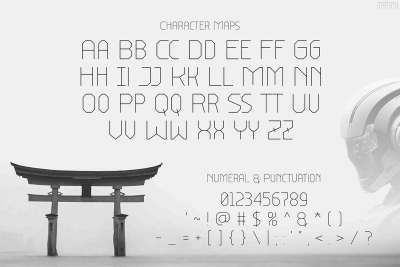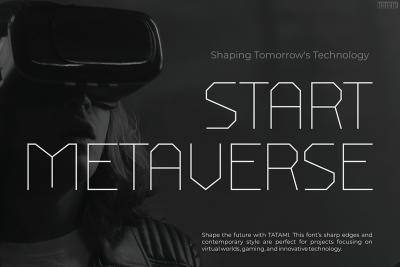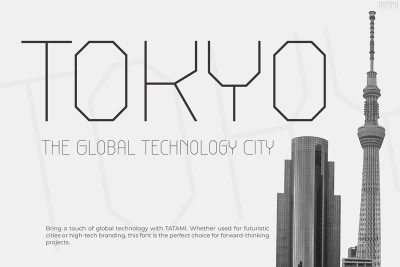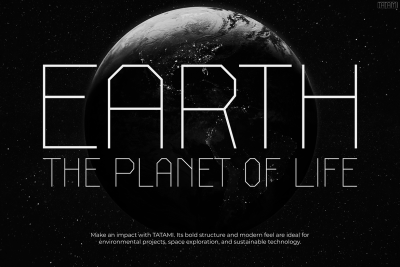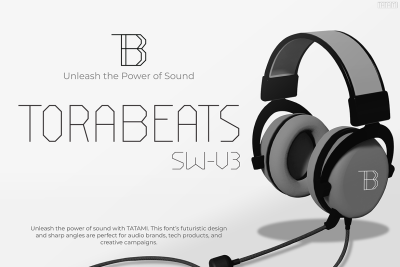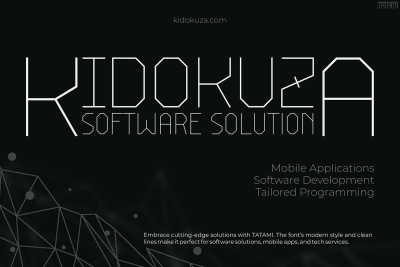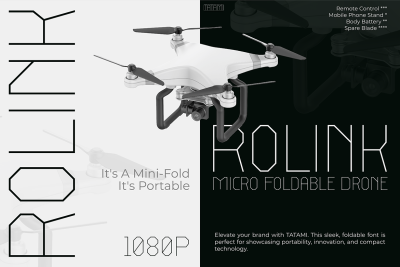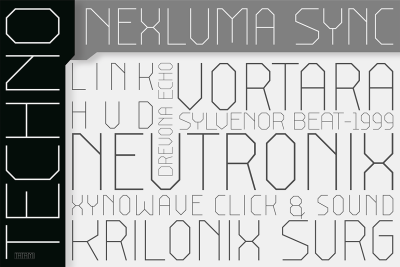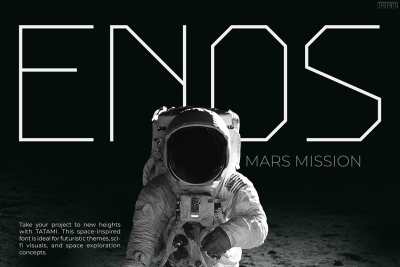
Futuristic Font TATAMI โ A Bold Statement in Typography
Futuristic Font TATAMI is a sleek, modern typeface that brings innovation and style to any design. With its sharp angles, geometric precision, and high-tech aesthetics, this font truly embodies the future of digital branding. Moreover, its clean yet edgy structure makes it perfect for creating a strong visual identity. Whether you are working on branding, marketing, or creative projects, TATAMI stands out due to its unique blend of minimalism and futuristic appeal.
Aesthetic & Functionality in One
TATAMI is more than just a fontโitโs an artistic statement. In addition, its carefully designed letterforms feature sharp lines and an angular structure, making it reminiscent of cyberpunk, high-tech environments, and digital interfaces. Furthermore, its geometric composition ensures a balanced look, offering both readability and a strong futuristic character.
Since each letter is crafted to convey precision and modernity, TATAMI is an excellent choice for projects that demand a cutting-edge and tech-inspired visual style. Not only is it stylish, but it is also highly adaptable, making it suitable for various creative applications such as digital art, product branding, and even futuristic-themed campaigns.
Who Should Use Futuristic Font TATAMI?
TATAMI is the perfect font for designers, tech startups, and creatives looking to add a futuristic touch to their work. Specifically, it is ideal for:
- Tech & AI Brands โ Whether for logos, apps, or websites, this font delivers a sleek, high-tech look.
- Gaming & Esports โ It enhances game titles, posters, and streaming overlays with a bold cyber aesthetic.
- Music & Entertainment โ Perfect for album covers, festival posters, and futuristic event branding.
- Marketing & Advertising โ Great for campaigns that require innovation and a forward-thinking approach.
- Architects & Engineers โ Works well for conceptual presentations and futuristic urban designs.
Take Your Design to the Future